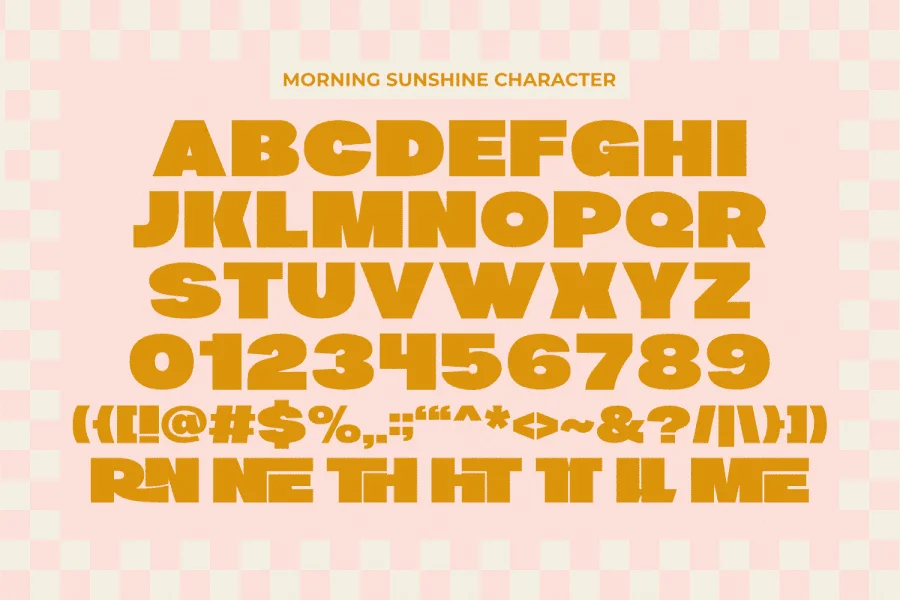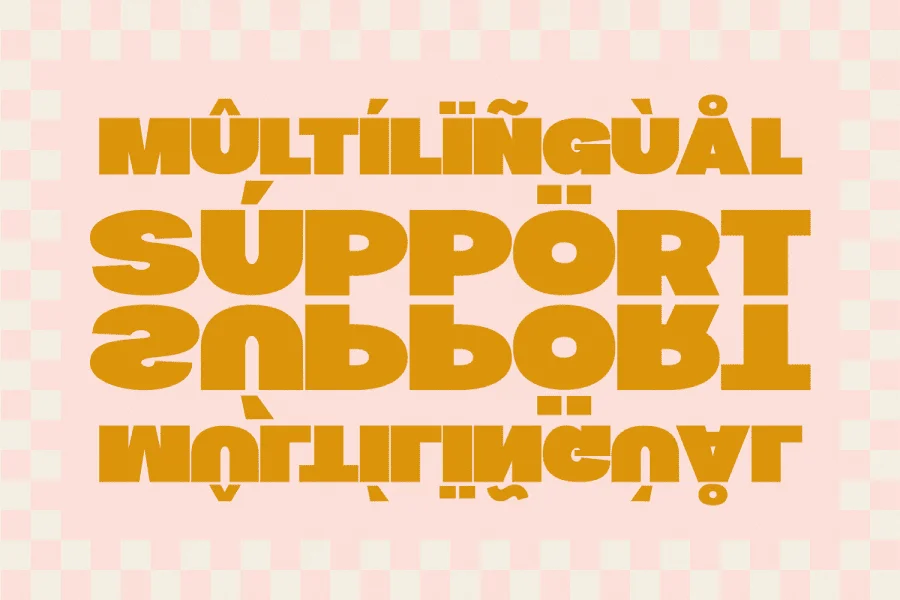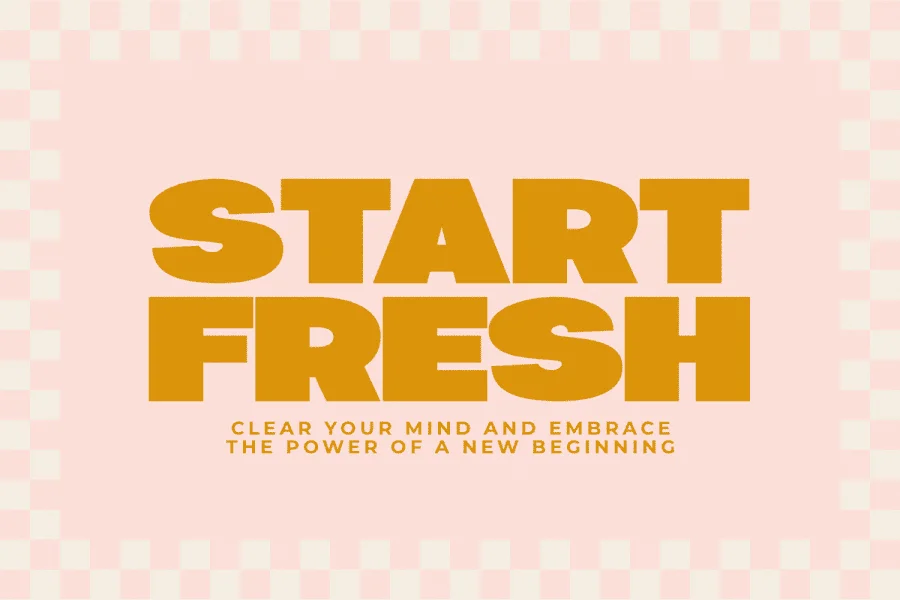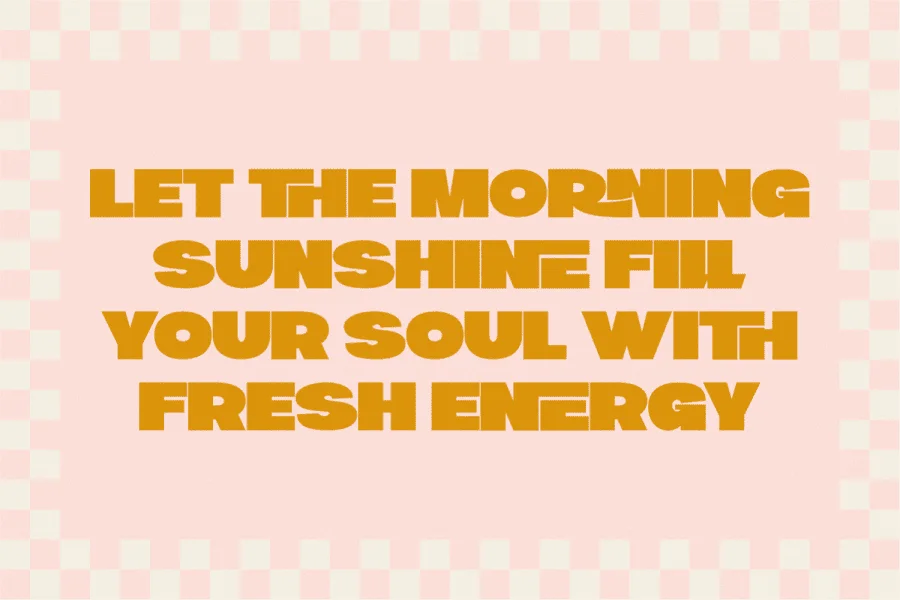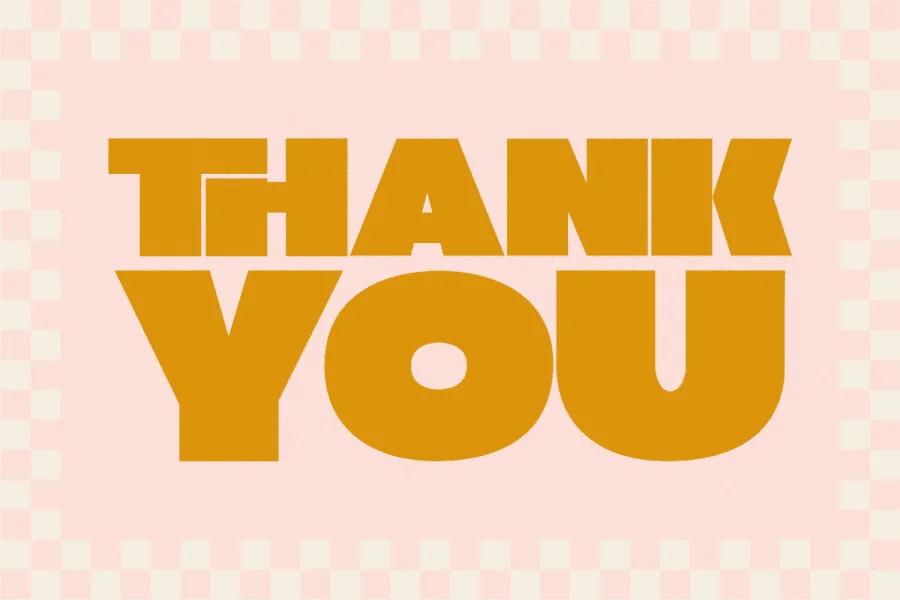
Morning Sunshine is a bold, chunky display typeface that channels a vibrant retro aesthetic. Characterized by its ultra-heavy weight and low contrast, this sans-serif design features thick, solid strokes that maximize impact. The letterforms are tightly spaced and exhibit a blocky, architectural structure with blunt, planar terminals, while the overall composition remains grounded and robust.
This typeface is exceptionally well-suited for high-visibility applications where a cheerful, nostalgic tone is desired. Its dense, graphic presence makes it ideal for bold editorial headlines, poster designs, retro-themed packaging, and brand identities that require a friendly yet commanding voice. Morning Sunshine thrives in display settings, transforming simple text into a powerful visual focal piece.